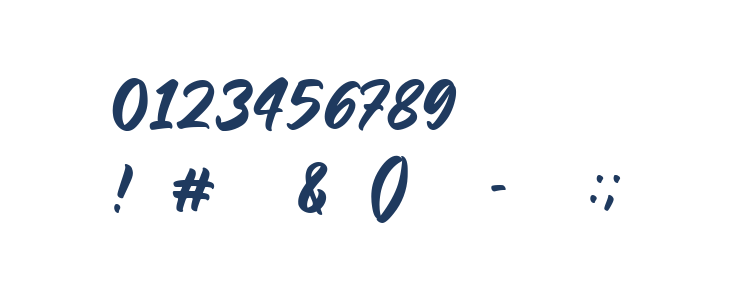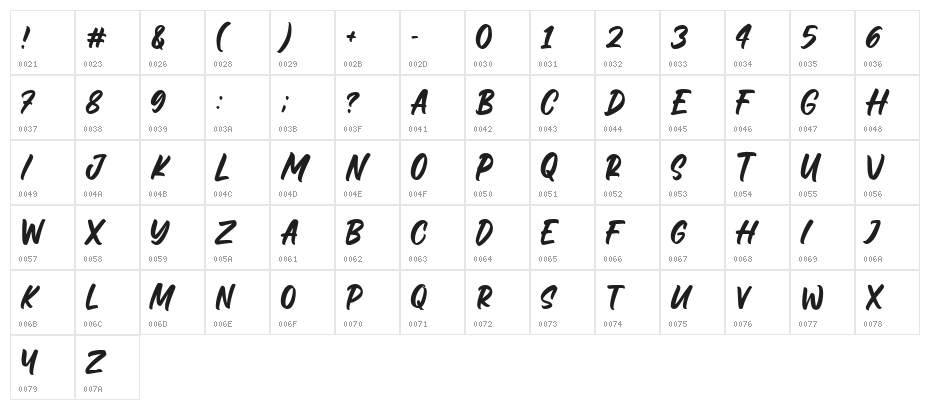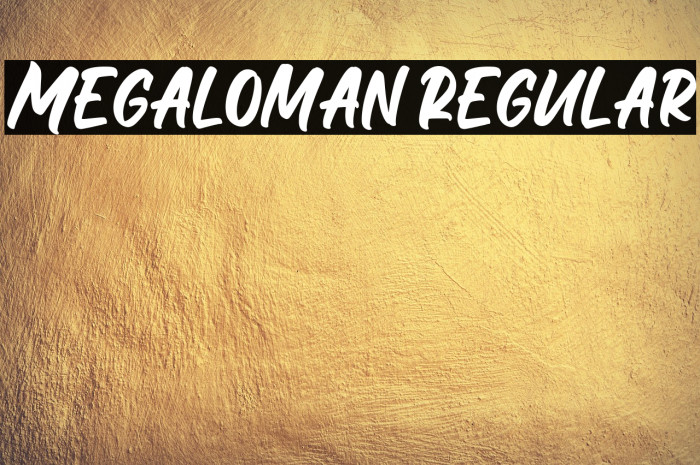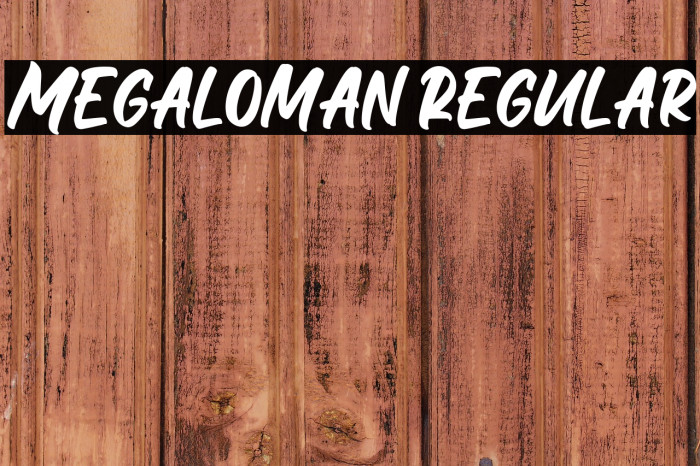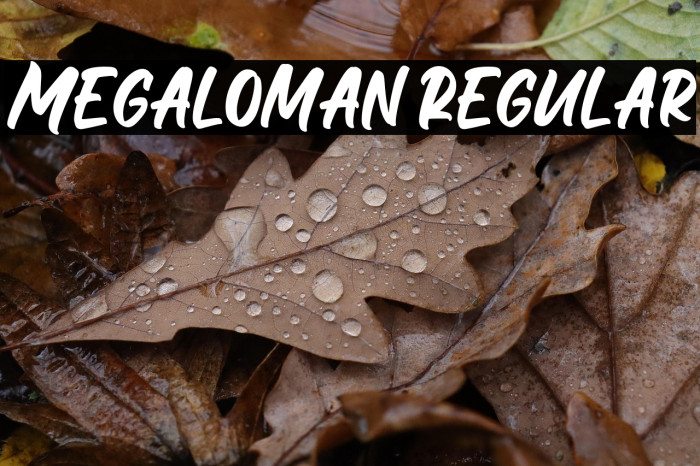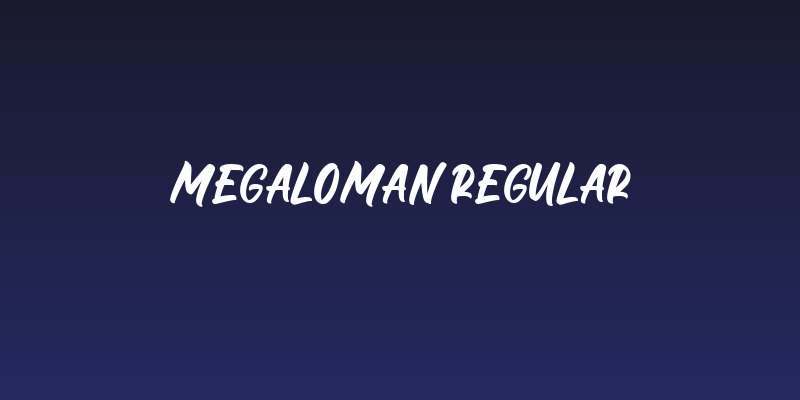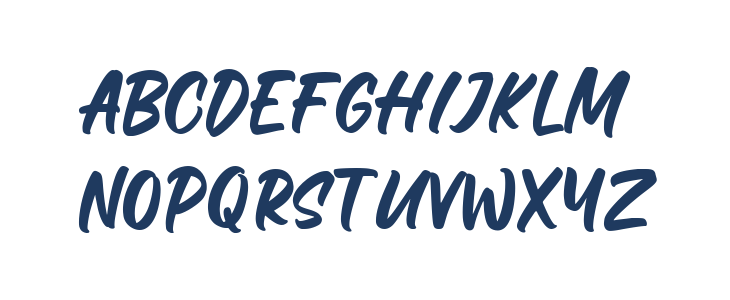
Megaloman Regular Font
Megaloman Regular Description
This font features a bold and dynamic script style with a handwritten appearance. The characters are fluid and connected, giving a sense of motion and energy. The strokes are thick and consistent, providing a strong visual impact. The uppercase and lowercase letters maintain a cohesive look, with slightly exaggerated curves and loops that enhance its expressive nature. The numbers and special characters follow the same stylistic approach, ensuring uniformity across all glyphs. This font is ideal for projects that require a personal touch or a bold statement.